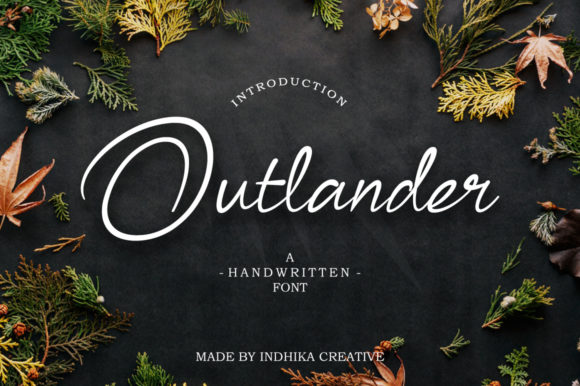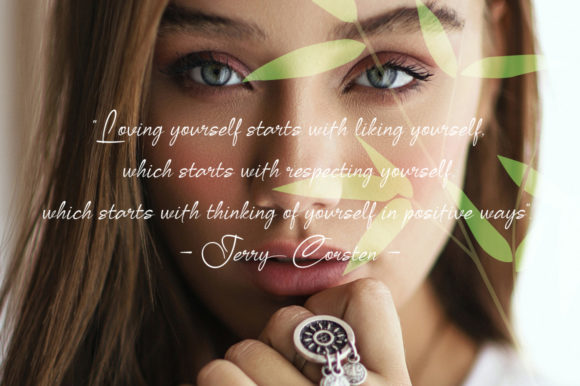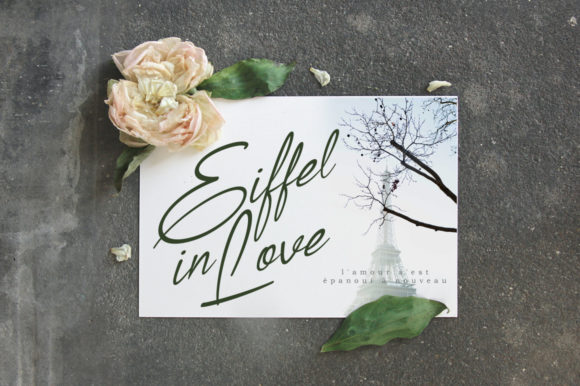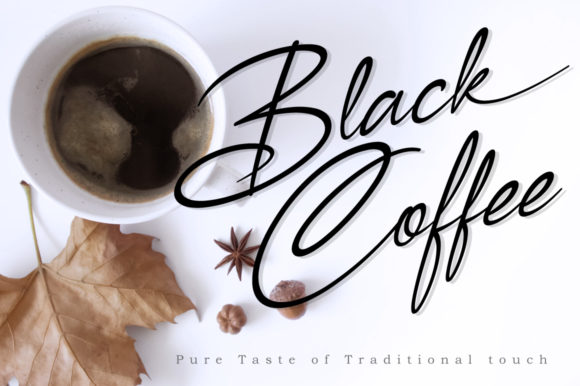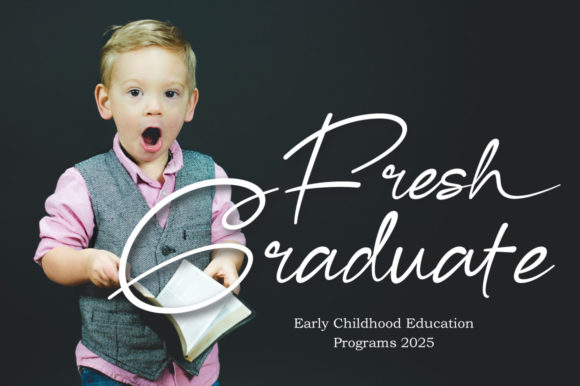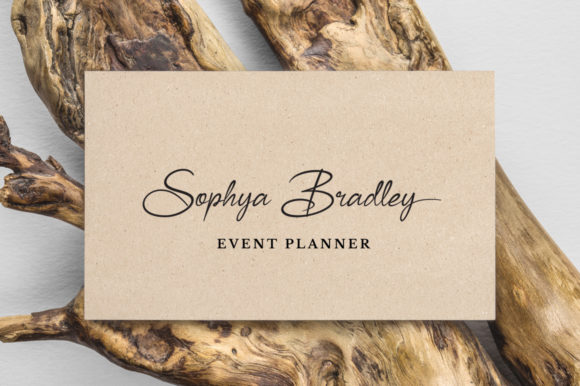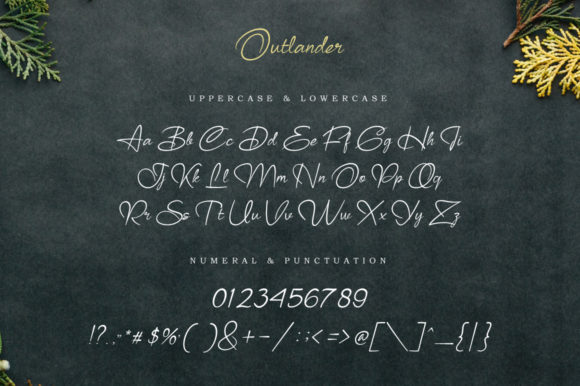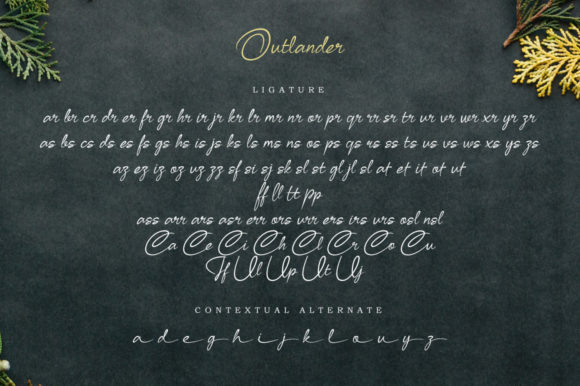
Outlander Font
About Outlander Font
Outlander is a refined and sophisticated handwritten font that brings a touch of elegance and charm to your creative projects. With its smooth and flowing curves, this font exudes a sense of grace and style, making it perfect for a wide range of design ideas.
Whether you’re working on branding, invitations, logos, quotes, product packaging, or any other project, Outlander will elevate your designs and give them a timeless and luxurious feel. Its versatility allows it to be used in both formal and informal contexts, making it a great choice for a variety of applications.
The font’s PUA encoding ensures easy access to all its glyphs and swashes, giving you the freedom to customize and personalize your designs. Whether you want to add flourishes and decorative elements or create unique letter combinations, Outlander provides you with the tools to make your designs truly stand out.
With Outlander as part of your font collection, you have a valuable resource that can enhance and enliven any creative idea. Its elegant and sophisticated nature will add a touch of refinement to your projects, making them more memorable and impactful.
Embrace the beauty and grace of Outlander and let it be the elegant handwriting that brings your creative visions to life. Whether it’s for print or digital media, this font will effortlessly elevate your designs and leave a lasting impression on your audience. Enjoy the versatility and ease of use that Outlander offers as you embark on your creative journey!